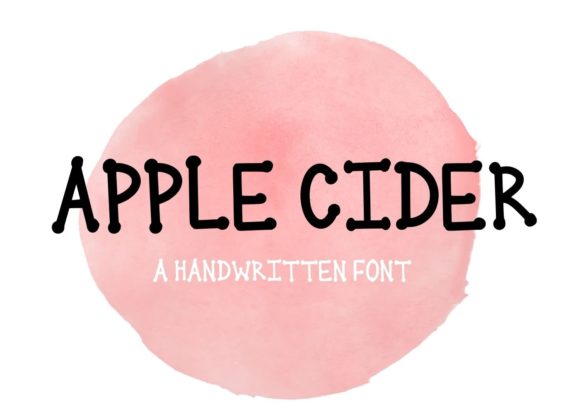
Introducing Apple Cider Font: The Perfect Addition to Your Creative Projects
Are you looking for a font that can add a touch of fun and uniqueness to your creative projects? Look no further than Apple Cider Font! This cool and neat display font is perfect for making your designs stand out from the crowd. In this article, we’ll take a closer look at Apple Cider Font and explore its features, benefits, and uses.
What is Apple Cider Font?
Apple Cider Font is a display font designed to add a touch of fun and playfulness to your designs. Its unique and quirky style makes it perfect for use in a wide range of creative projects, from posters and flyers to logos and branding materials.
The font features a distinctive, hand-drawn style that gives it a charming and approachable feel. Its bold and eye-catching design makes it perfect for use in headlines, titles, and other applications where you want to grab the viewer’s attention.
Key Features of Apple Cider Font
So, what makes Apple Cider Font so special? Here are some of its key features:
- Unique and quirky style: Apple Cider Font has a distinctive, hand-drawn style that sets it apart from more traditional fonts.
- Bold and eye-catching design: The font’s bold design makes it perfect for use in headlines, titles, and other applications where you want to grab the viewer’s attention.
- Highly versatile: Apple Cider Font can be used in a wide range of creative projects, from posters and flyers to logos and branding materials.
- Easily readable: Despite its bold design, Apple Cider Font is still highly readable, even at smaller sizes.
Benefits of Using Apple Cider Font
So, why should you choose Apple Cider Font for your creative projects? Here are some of the benefits of using this font:
- Adds a touch of fun and playfulness: Apple Cider Font’s unique and quirky style adds a touch of fun and playfulness to your designs.
- Helps your designs stand out: The font’s bold and eye-catching design helps your designs stand out from the crowd.
- Highly versatile: Apple Cider Font can be used in a wide range of creative projects, making it a great addition to your font library.
Uses of Apple Cider Font
So, what can you use Apple Cider Font for? Here are some ideas:
- Posters and flyers: Apple Cider Font is perfect for use in posters and flyers, where you want to grab the viewer’s attention.
- Logos and branding materials: The font’s unique and quirky style makes it perfect for use in logos and branding materials.
- Social media graphics: Apple Cider Font is also great for use in social media graphics, where you want to add a touch of fun and playfulness to your designs.
- Headlines and titles: The font’s bold design makes it perfect for use in headlines and titles.
Tips for Using Apple Cider Font
Here are some tips for using Apple Cider Font in your creative projects:
- Use it sparingly: Apple Cider Font is a bold font, so use it sparingly to avoid overwhelming your designs.
- Experiment with different colors: The font looks great in a wide range of colors, so experiment with different options to find the one that works best for your design.
- Pair it with other fonts: Apple Cider Font looks great when paired with other fonts, so experiment with different combinations to find the one that works best for your design.
In conclusion, Apple Cider Font is a cool, neat, and fun display font that can add a touch of uniqueness to your creative projects. Its bold and eye-catching design makes it perfect for use in headlines, titles, and other applications where you want to grab the viewer’s attention.
With its highly versatile design and ease of use, Apple Cider Font is a great addition to any font library. So why not give it a try and see how it can help take your designs to the next level?
- What is Apple Cider Font? Apple Cider Font is a display font designed to add a touch of fun and playfulness to your designs.